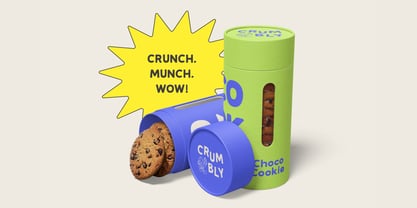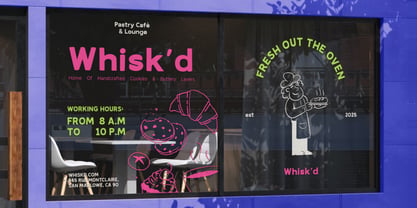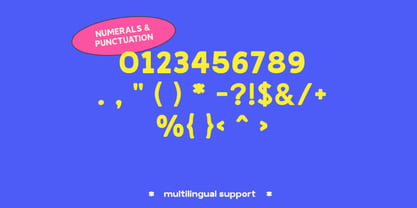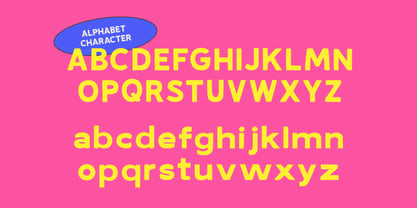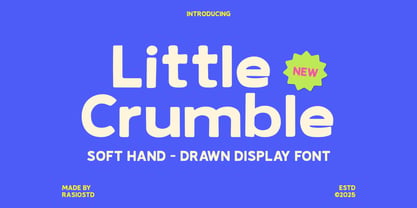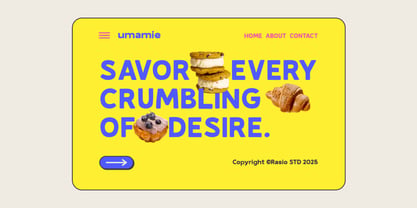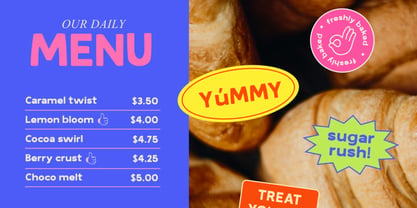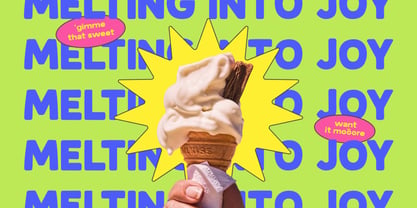
Little Crumble
by Rasio Studio
The Little Crumble Font Family was designed by Fajar Indra and published by Rasio Studio. Little Crumble contains 1 styles. More about this family
The Little Crumble Display Font is a premium typeface designed to elevate your creative projects.. Perfect for manufacturing quotes, logotypes, magazine headers, and more, this font brings a professional and refined touch to any design. With features like Open Type format support, a complete set of uppercase and lowercase letters, multilingual support, and numerals with punctuation, it ensures adaptability and precision. Whether you're crafting brand identities, editorial layouts, or stand out typography, Little Crumble Display Font delivers exceptional results for polished, high-quality designs.
Designers: Fajar Indra
Foundry: Rasio Studio